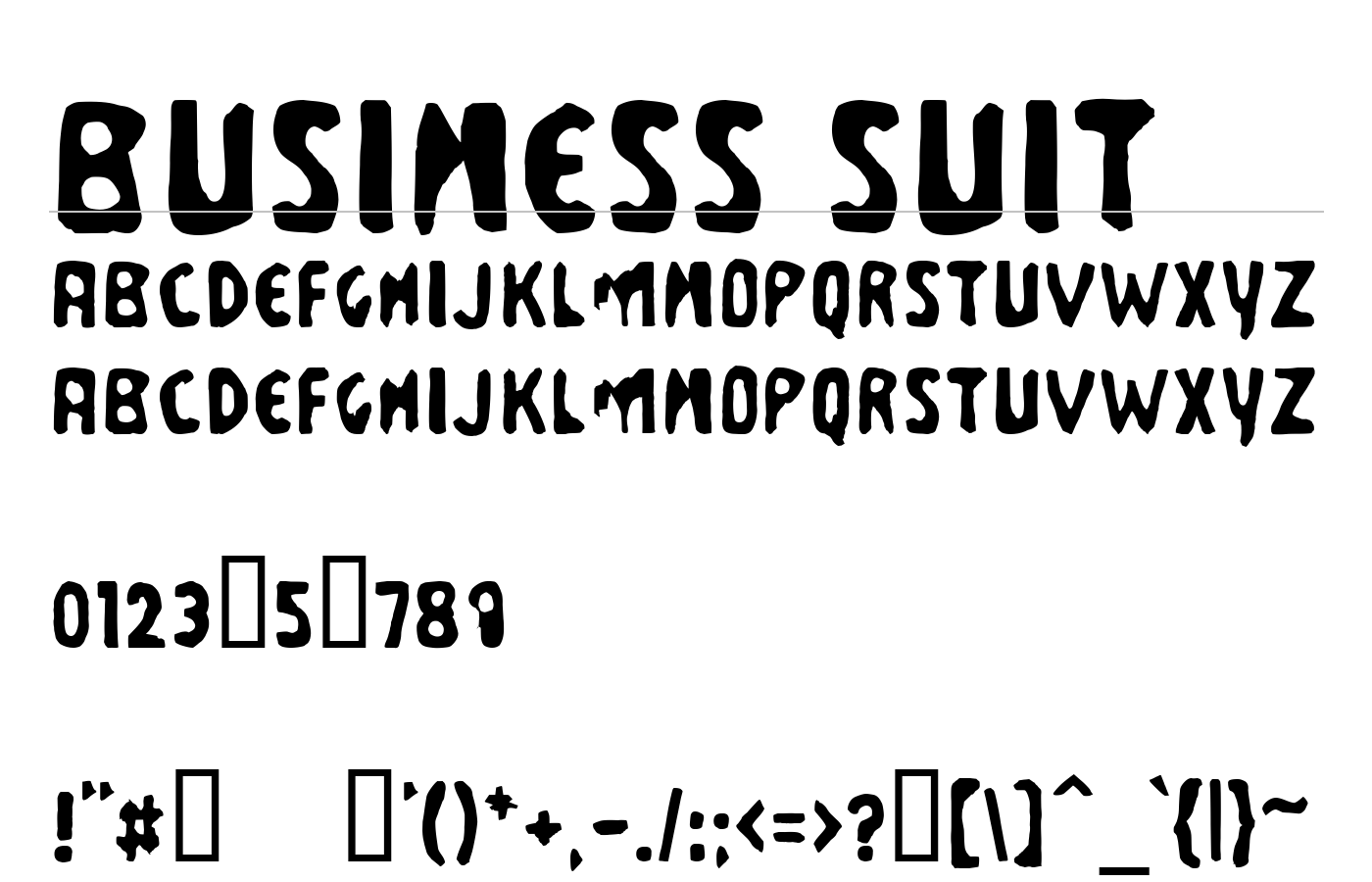
Business Suit Font is a bold, irregular sans serif with a hand-crafted, playful vibe. Its rounded, uneven shapes give it a casual and approachable personality, making it suitable for creative projects that want to feel personal and unique rather than formal or corporate. This font works well for headlines, posters, and branding where a fun and distinctive look is desired.
Business Suit Font